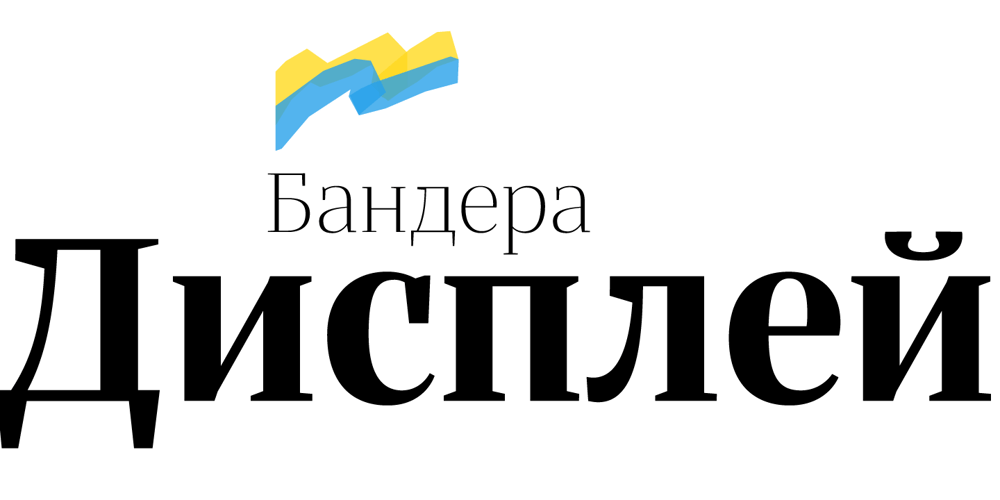
Bandera Display Cyrillic Font Family was designed by Andrij Shevchenko and published by AndrijType. Bandera Display Cyrillic contains 12 styles and family package options. This contrast serif typeface is good for display use. Bandera Display Cyrillic has six weights with original italics. It catches attention in headlines of posters and magazines. It works well with Bandera Cyrillic (slab serif), Osnova Cyrillic (sans serif) and Bandera Text Cyrillic (serif) fonts. Bandera is Spanish for ‘flag’. And Bandera is a symbol of Ukrainian fighting for freedom for many years.